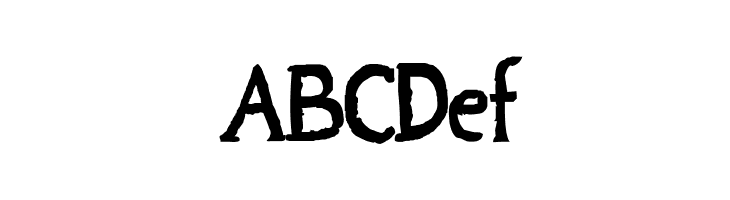
DarkSeventh-PersonalUse Font
- Font: DarkSeventh-PersonalUse
( Fonts by Digital Graphics Labs - www.digitalgraphiclabs.com )
A bold, smudged font with a playful, textured style.